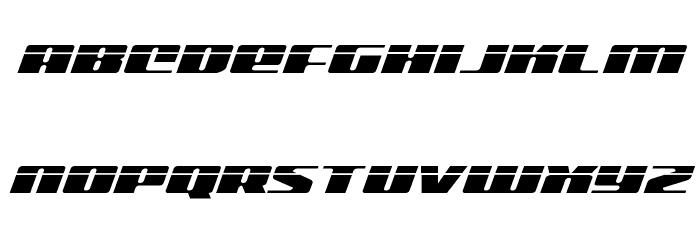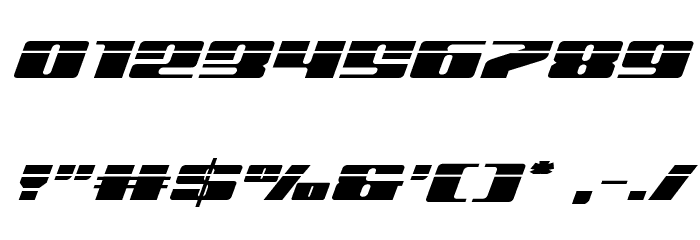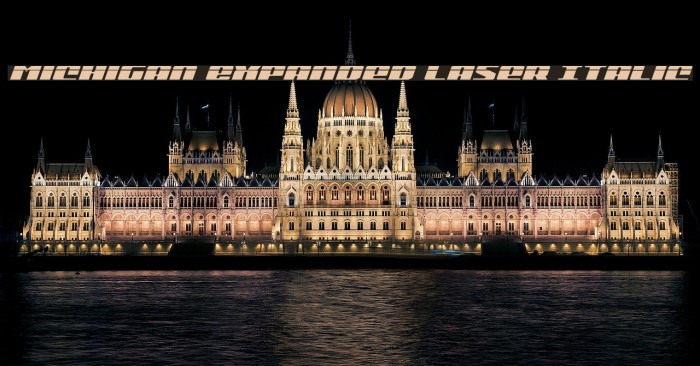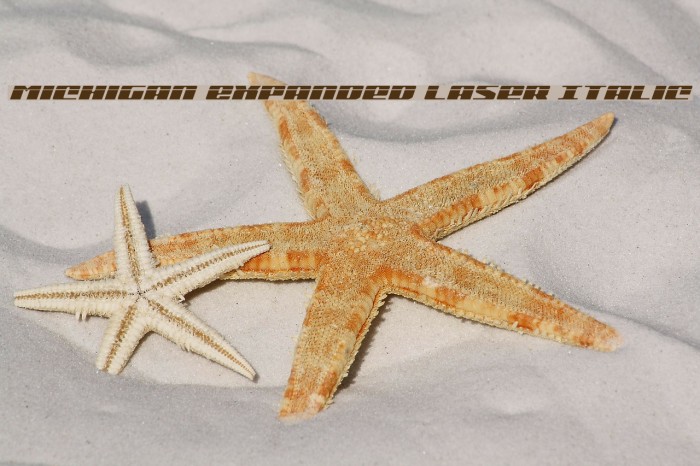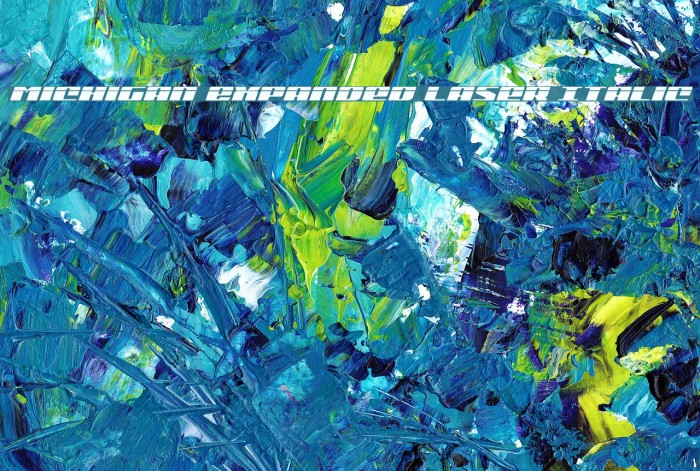
Michigan Expanded Laser Italic Font
This font features a bold, futuristic design with an expanded width and italic slant. The characters are constructed with sharp, angular edges and a distinct geometric style, giving it a modern and dynamic appearance. The uppercase and lowercase letters maintain a consistent style, with a strong emphasis on horizontal lines and a slight forward tilt, enhancing its speed-inspired look. The numbers and special characters follow the same design principles, ensuring uniformity across all glyphs. This font is ideal for projects that require a sense of motion and modernity.
A bold, expanded, and italic font with a futuristic and dynamic style.
- Proposed Projects: Ideal for technology branding, sports team logos, automotive advertisements, and sci-fi themed designs.
- Use Case: Logos, Headlines, Posters